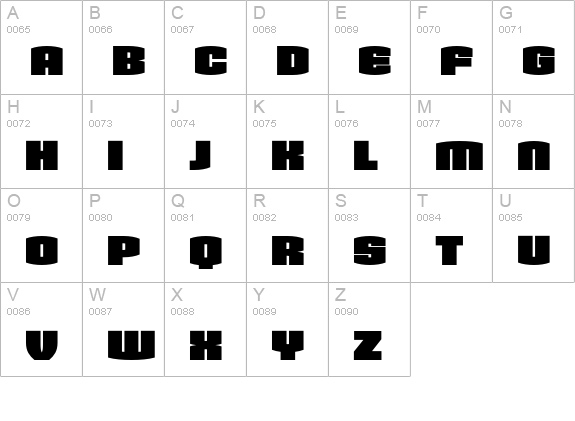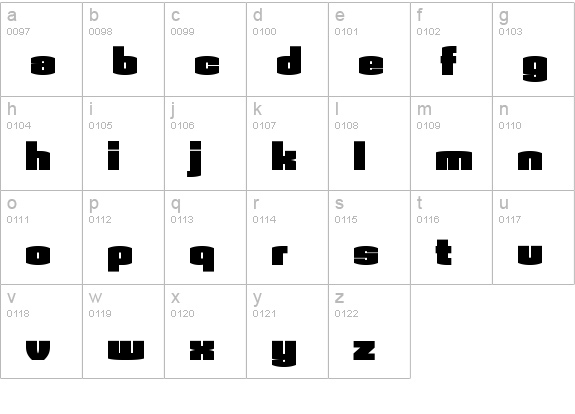
Armada-Black is a maximum-weight, dramatic variant in the Armada typeface family \xE2\x80\x94 well suited to maximum-impact headlines, posters, and packaging.
Armada-Black is a bold and commanding typeface that exudes strength and authority. Its sleek and modern design makes it perfect for headlines, posters, and branding projects that require a strong and impactful look. The sharp, clean lines of Armada-Black give it a sophisticated and professional appearance, making it a versatile choice for a wide range of design applications. Best of all, Armada-Black is available for free download at FontsMarket.com. This means you can add this powerful font to your design arsenal without having to spend a penny. Whether you're a seasoned designer looking for a new font to add to your collection or a beginner exploring different typefaces, Armada-Black is a fantastic option that won't break the bank. Download it today and unleash the full potential of your designs with this stunning and impactful font.